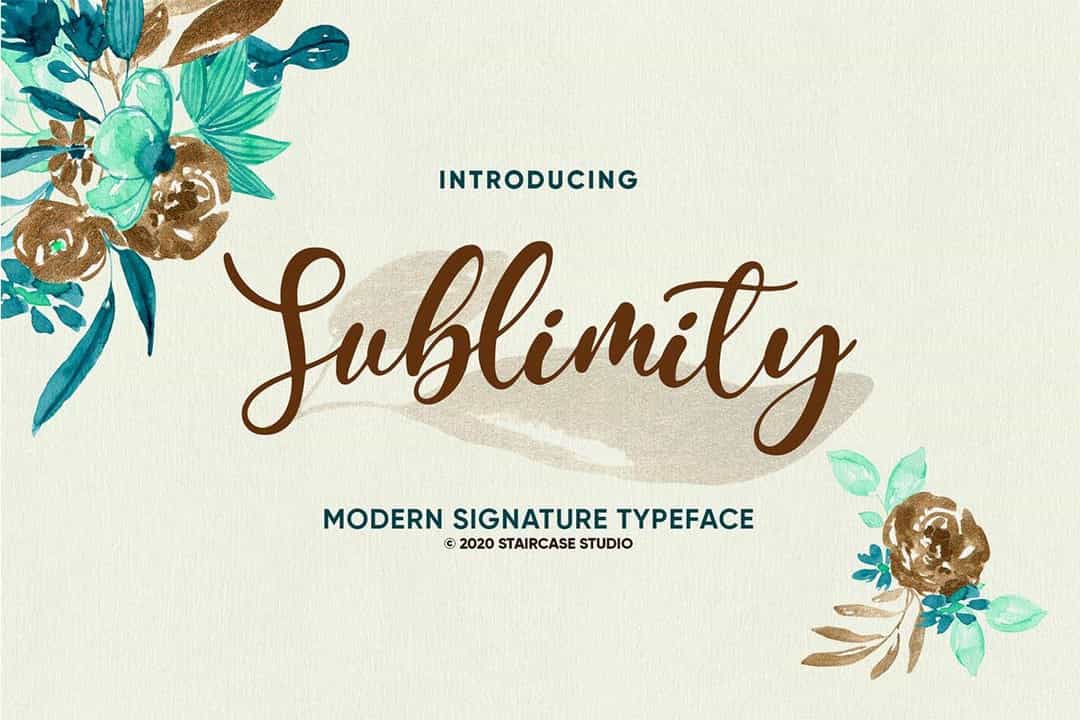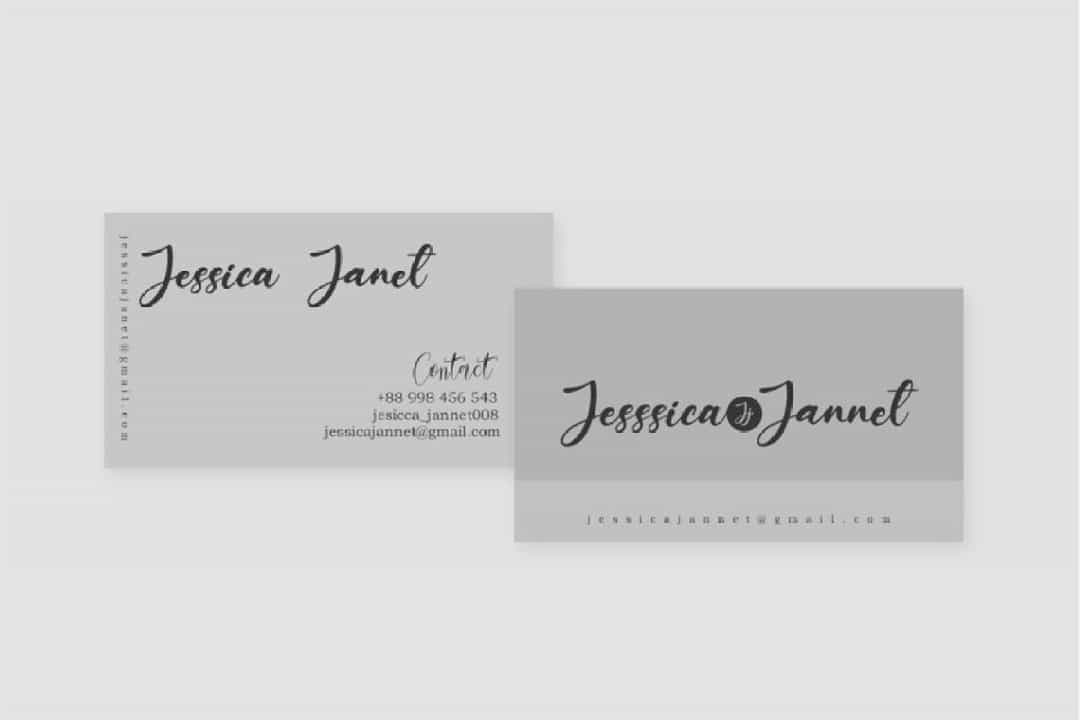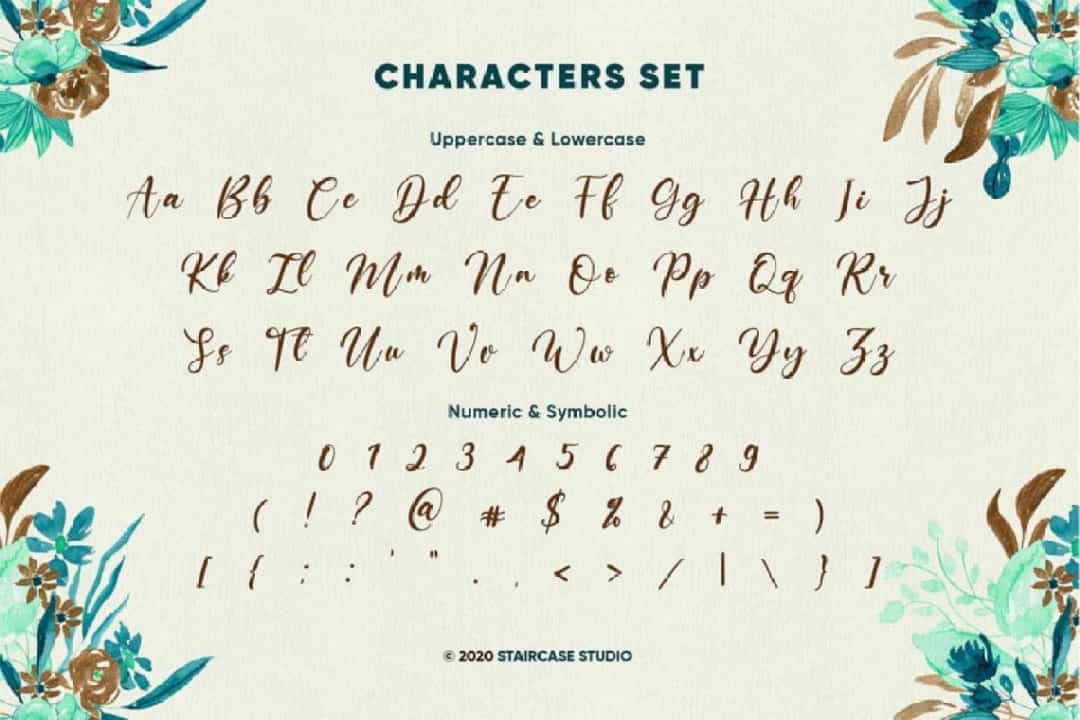
Sublimity is an elegant calligraphy script typeface filled with all things delightful and sweet, making it the ideal choice for wedding invitations, magazine branding, logos blog posts photo overlays and much more!